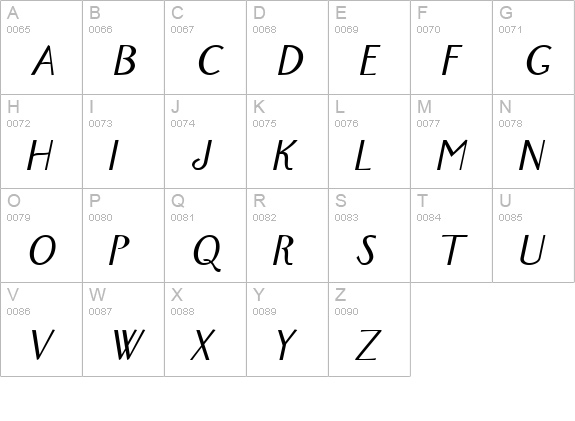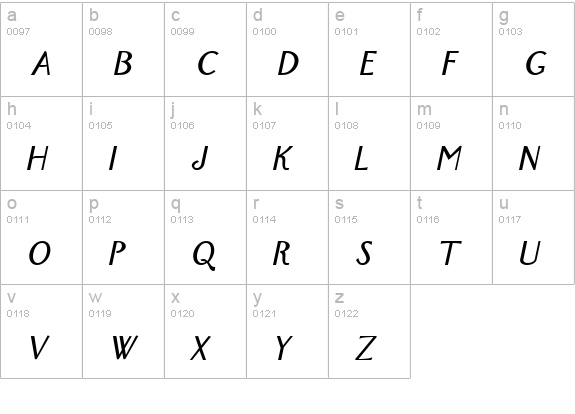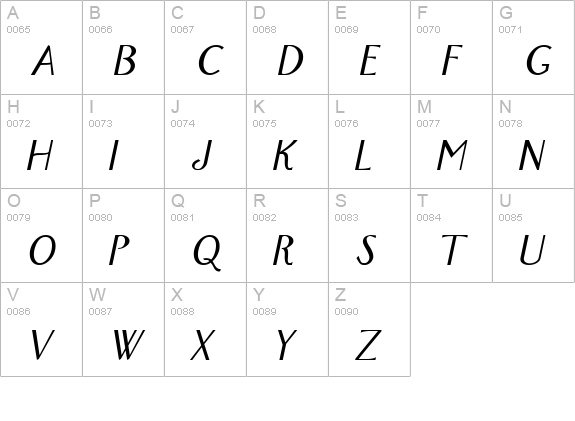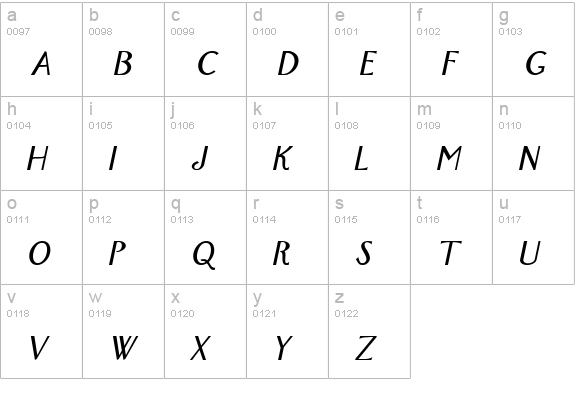
New York Italic Font Details
New York Italic is a distinctive, italic variant in the New typeface family \xE2\x80\x94 well suited to design and typography projects.
New York Italic font is a sleek and stylish typeface that exudes sophistication and modernity. Its elegant slanted design adds a touch of flair to any project, making it perfect for adding a contemporary edge to your designs. The smooth curves and clean lines of New York Italic font give it a professional and polished look that is sure to elevate your work to the next level. The best part? New York Italic font is completely free to download at FontsMarket.com! This means you can easily access this high-quality typeface without any cost, making it a valuable asset for designers, creatives, and anyone looking to enhance their projects with a touch of class. Don't miss out on this fantastic opportunity to elevate your designs with the stylish and versatile New York Italic font, available for free download now at FontsMarket.com.